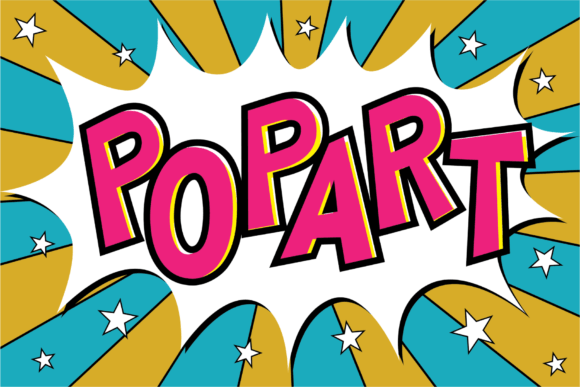
Pop Art Font: A Bold and Colorful Display Font Inspired by 1960s Pop Art
Pop Art is a cool and playful display font that evokes the bold and colorful style of 1960s pop art. Its chunky and stylized letters feature bright colors and unique shapes, making it perfect for creating eye-catching titles and headlines for posters, album covers, and other pop art-inspired designs. The font’s retro and energetic personality is sure to make a statement.
What is Pop Art Font?
Pop Art Font is a display font that is inspired by the bold and colorful style of 1960s pop art. The font features chunky and stylized letters with bright colors and unique shapes, making it perfect for creating eye-catching titles and headlines. The font’s retro and energetic personality is sure to make a statement, and it is perfect for use in a variety of design projects, including posters, album covers, and other pop art-inspired designs.
Key Features of Pop Art Font
- Bold and Colorful: Pop Art Font features bold and colorful letters that are sure to grab attention.
- Chunky and Stylized: The font’s chunky and stylized letters are perfect for creating eye-catching titles and headlines.
- Retro and Energetic: The font’s retro and energetic personality is sure to make a statement.
- Unique Shapes: The font features unique shapes and bright colors, making it perfect for creating pop art-inspired designs.
Uses of Pop Art Font
Pop Art Font is perfect for use in a variety of design projects, including:
- Posters: The font’s bold and colorful letters are perfect for creating eye-catching posters.
- Album Covers: The font’s retro and energetic personality is sure to make a statement on album covers.
- Logos: The font’s unique shapes and bright colors make it perfect for creating logos that stand out.
- Headlines: The font’s chunky and stylized letters are perfect for creating eye-catching headlines.
Benefits of Using Pop Art Font
There are several benefits to using Pop Art Font in your design projects, including:
- Attention-Grabbing: The font’s bold and colorful letters are sure to grab attention.
- Retro Style: The font’s retro and energetic personality is sure to add a touch of nostalgia to your designs.
- Versatility: The font is perfect for use in a variety of design projects, from posters to logos.
Pop Art Font is a bold and colorful display font that is perfect for creating eye-catching titles and headlines. Its retro and energetic personality is sure to make a statement, and it is perfect for use in a variety of design projects, from posters to logos. With its ease of use and versatility, Pop Art Font is a great addition to any designer’s toolkit.
- What is Pop Art Font? Pop Art Font is a display font that is inspired by the bold and colorful style of 1960s pop art.
- What are the key features of Pop Art Font? The font features bold and colorful letters, chunky and stylized letters, and unique shapes.
- What are the uses of Pop Art Font? The font is perfect for use in a variety of design projects, including posters, album covers, logos, and headlines.
- What are the benefits of using Pop Art Font? The font is attention-grabbing, has a retro style, is versatile, and is easy to use.